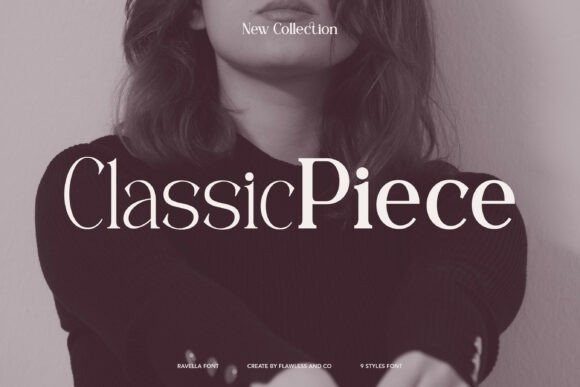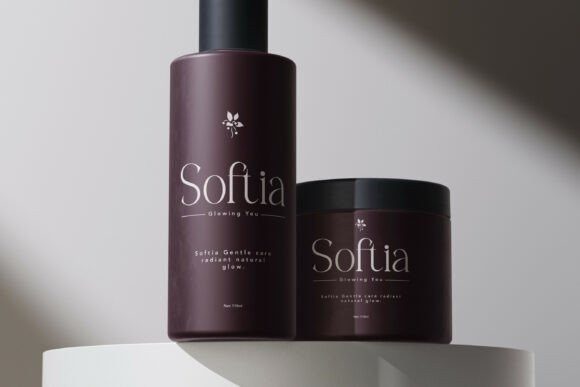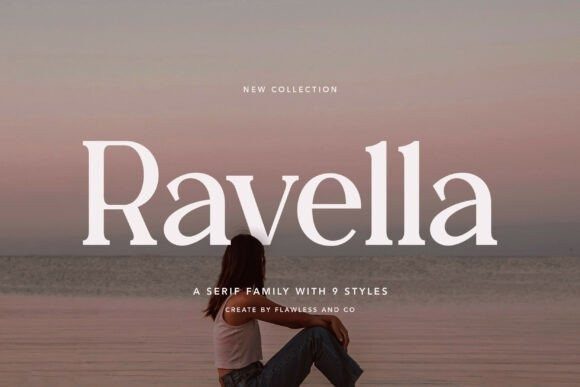
Ravella Font
Ravella Font is a sophisticated serif family that blends classic charm with modern sensibility. Designed with graceful curves and balanced contrast, Ravella offers a versatile range of 9 styles — perfect for designers who seek both beauty and function in their typography. Each weight carries a sense of refinement, making Ravella ideal for creating luxurious branding, editorial layouts, and elegant headlines.